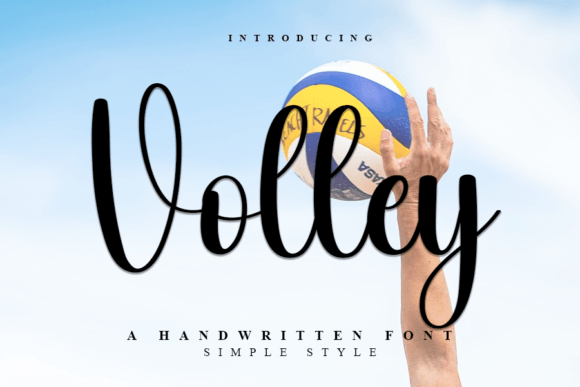
Introducing Volley, an enchanting script font family that will ignite your creativity and captivate your audience. This masterfully crafted font was meticulously designed to embody the elegance and charm of handwritten letters, evoking a sense of authenticity and warmth in every word. Let Volley take you on a journey of artistic expression, where your words dance and flow with grace.
With Volley, you have the power to transform ordinary text into captivating works of art. Its fluid strokes and distinctive ligatures create a visual symphony that speaks to the heart. Whether you're crafting heartfelt letters, designing stylish invitations, or branding your products with a touch of sophistication, Volley will elevate your creations to new heights.
Step into a world of endless possibilities and let your imagination soar. Volley shines brightly in a multitude of applications, from adding a personal touch to your social media posts to creating stunning logos and eye-catching marketing materials. Its versatility knows no bounds, making it an indispensable tool for designers, bloggers, and creative professionals alike.
With Volley, you'll discover a font that not only looks beautiful but also possesses a unique personality. Its timeless charm will leave a lasting impression, etching your words into the hearts and minds of your readers. Embrace the beauty of Volley and watch as your creative visions come to life.
Don't settle for ordinary fonts. Choose Volley, the ultimate font for cursive letters, and unlock a world of creativity that knows no limits. Make a statement, express yourself authentically, and leave an enduring legacy with every word you write.